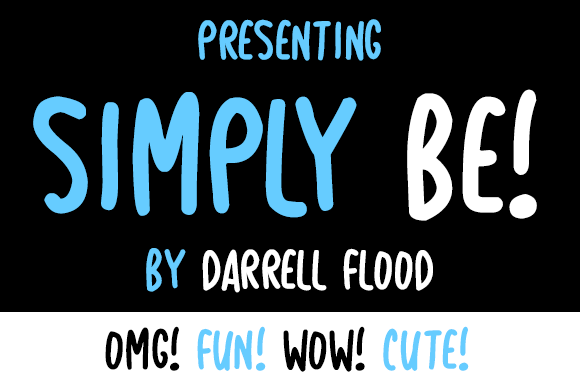
Simply Be Font
About Simply Be Font
Simply Be is a compact, friendly, freehand font, designed for casual appeal and maximizing horizontal space use! This a great sans serif font, perfect for a wide range of uses.